Font Sunday & the art of scribbling for the record
Yesterday the Design Museum received over 1.3K posts from participants all around the world taking part in a scribble themed #fontsunday and creativity gone wild.
To scribble means either to write or draw carelessly and in a hurry or to doodle according to the dictionary but scribbling has long been regarded as a form of art and one of the most important creativity boosters one can experience.
As noted by many therapists “bottled creative expression can compound into feeling increased stress, sadness, anger, and more, therefore, finding ways to exercise our thoughts and ideas keeps one's perspective fresh and our minds “open to wonder, optimism, and possibility.”
So before you play the Soul Scribble 5-minute creativity exercise with a piece of paper, ideally an 8.5" x 11" unlined paper, and your thought unbound be inspired by the art of the scribble as performed by creative geniuses of the past and the present.
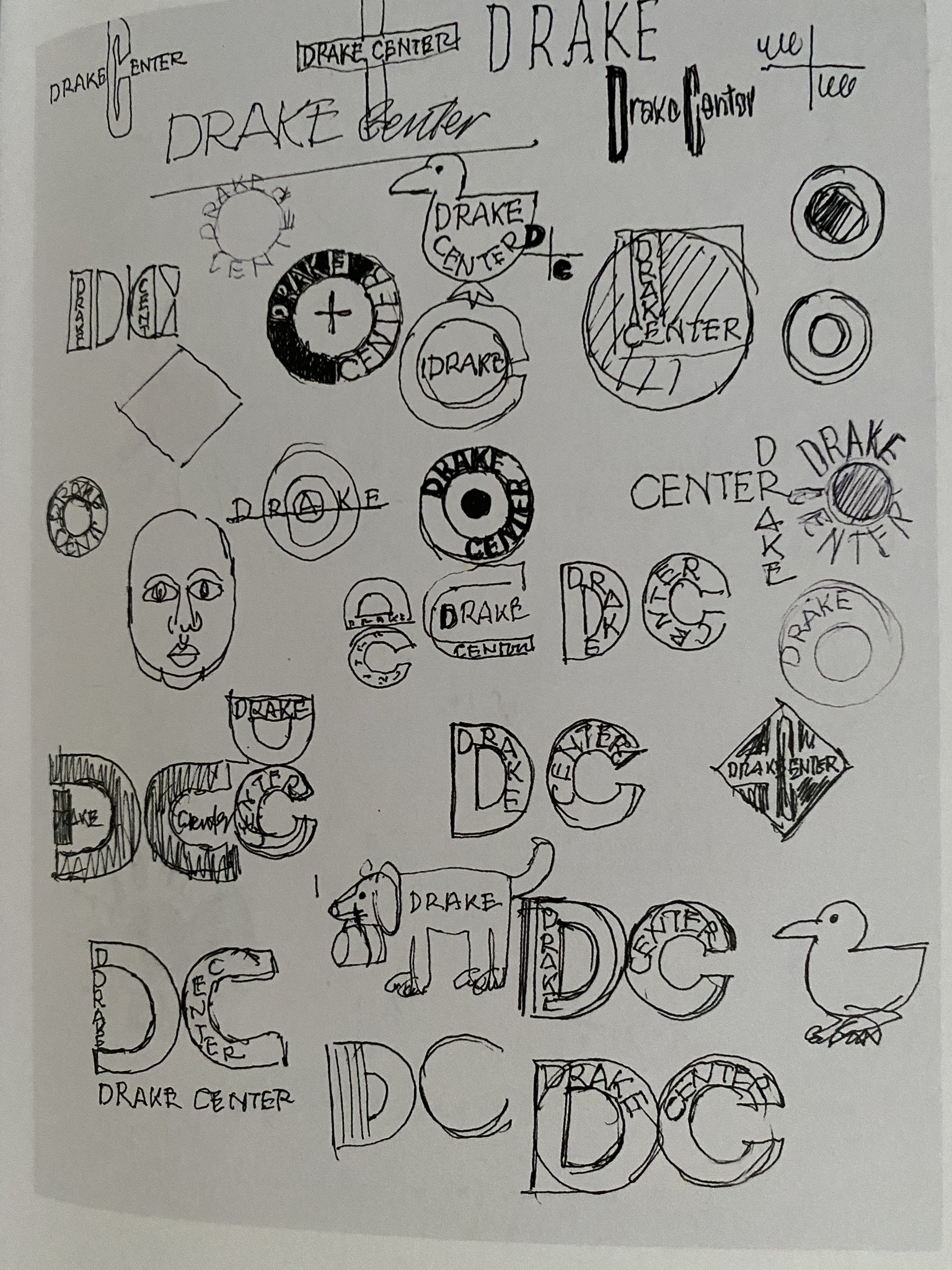
Paul Rand scribbles & sketches from newly released book Inspiration & Process Design via @kikocasa844
Paula Scher, Poster for the Public Theater, 2003 via @michaelbierut
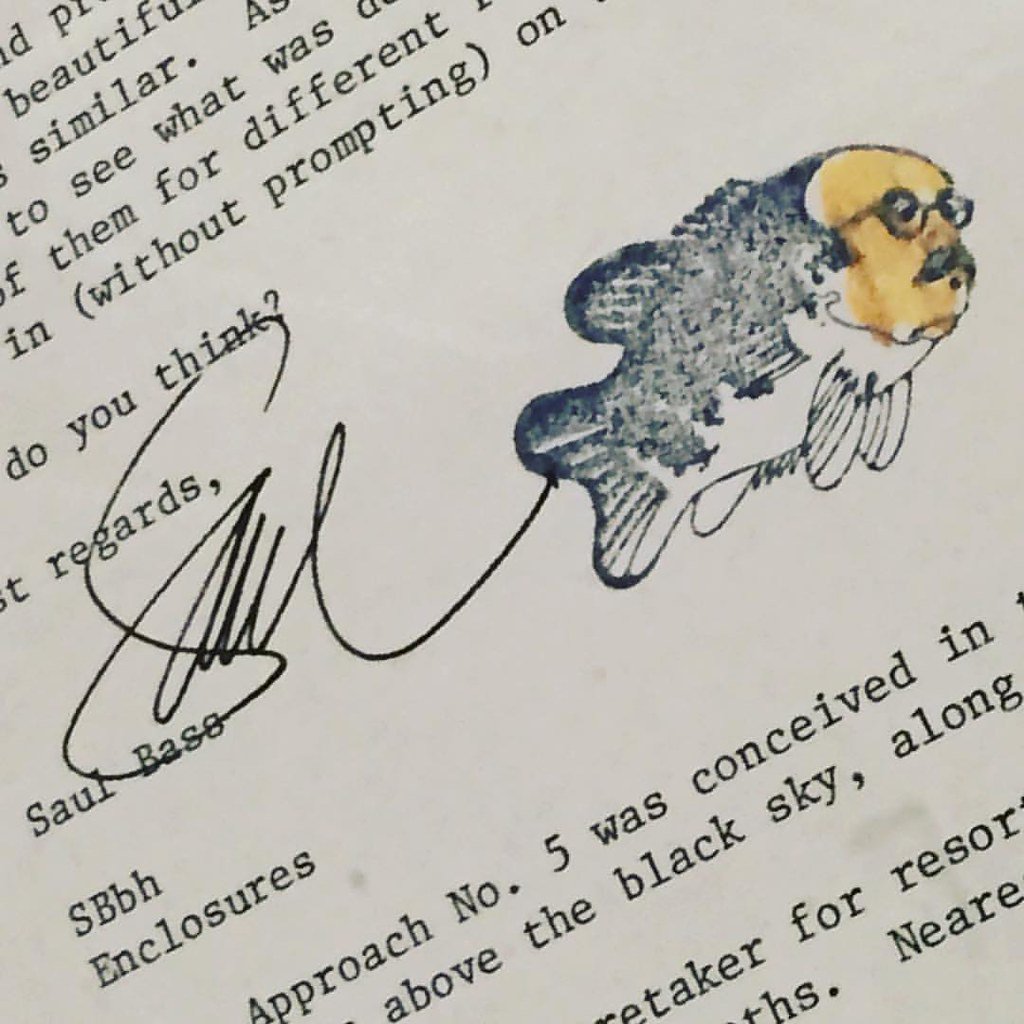
Saul Bass' signature scribble Bread and Honey via @usingourloaf
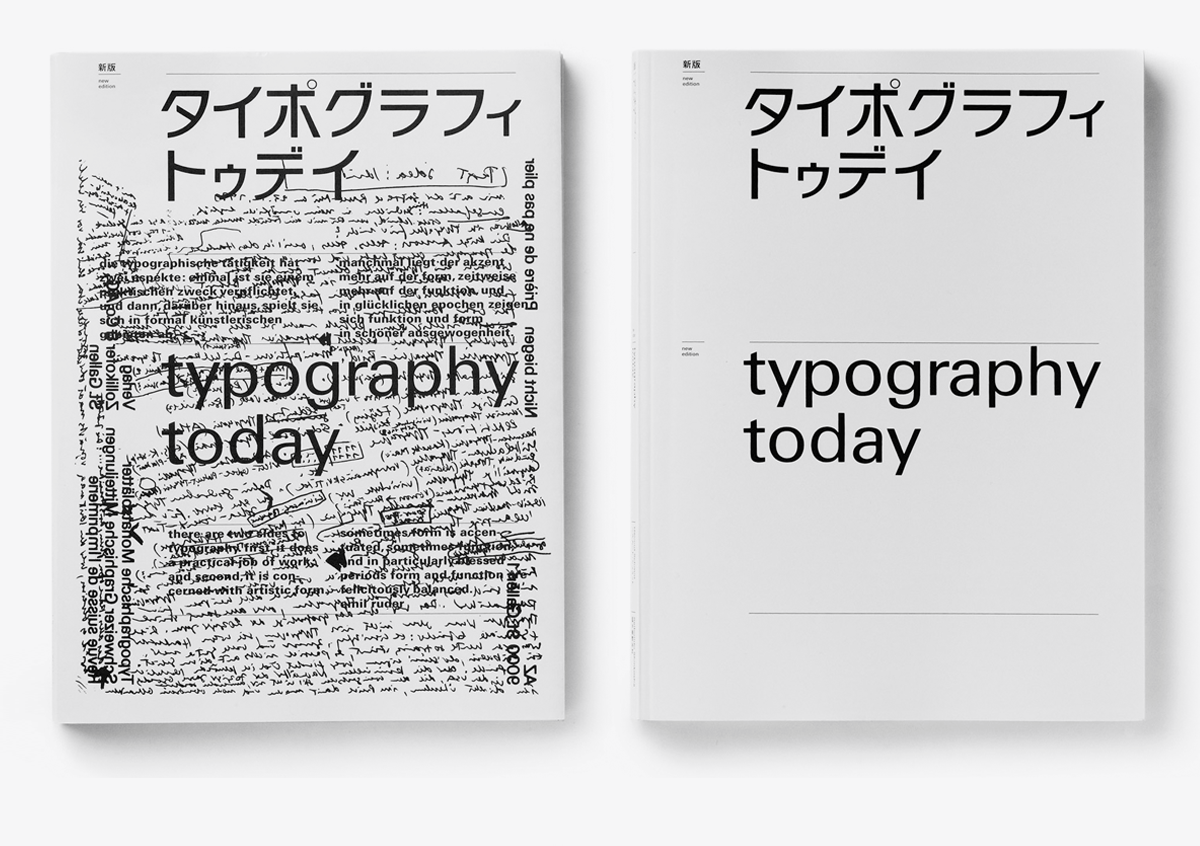
Cover of 'Typography Today', first published as a special edition of Idea magazine in 1980 and republished as a book in 1981, designed & edited by Helmut Schmid via @MHD_Studio
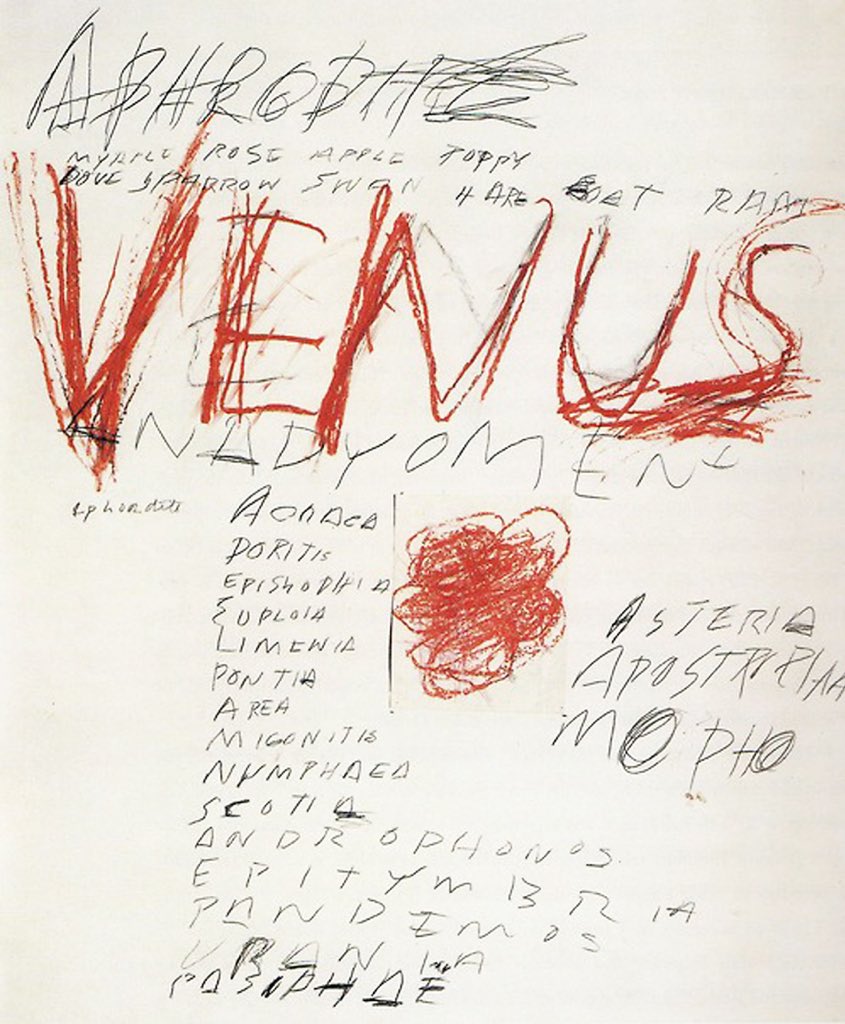
“Venus“ (1975) by Cy Twombly via @ArmandoRoqueCcs
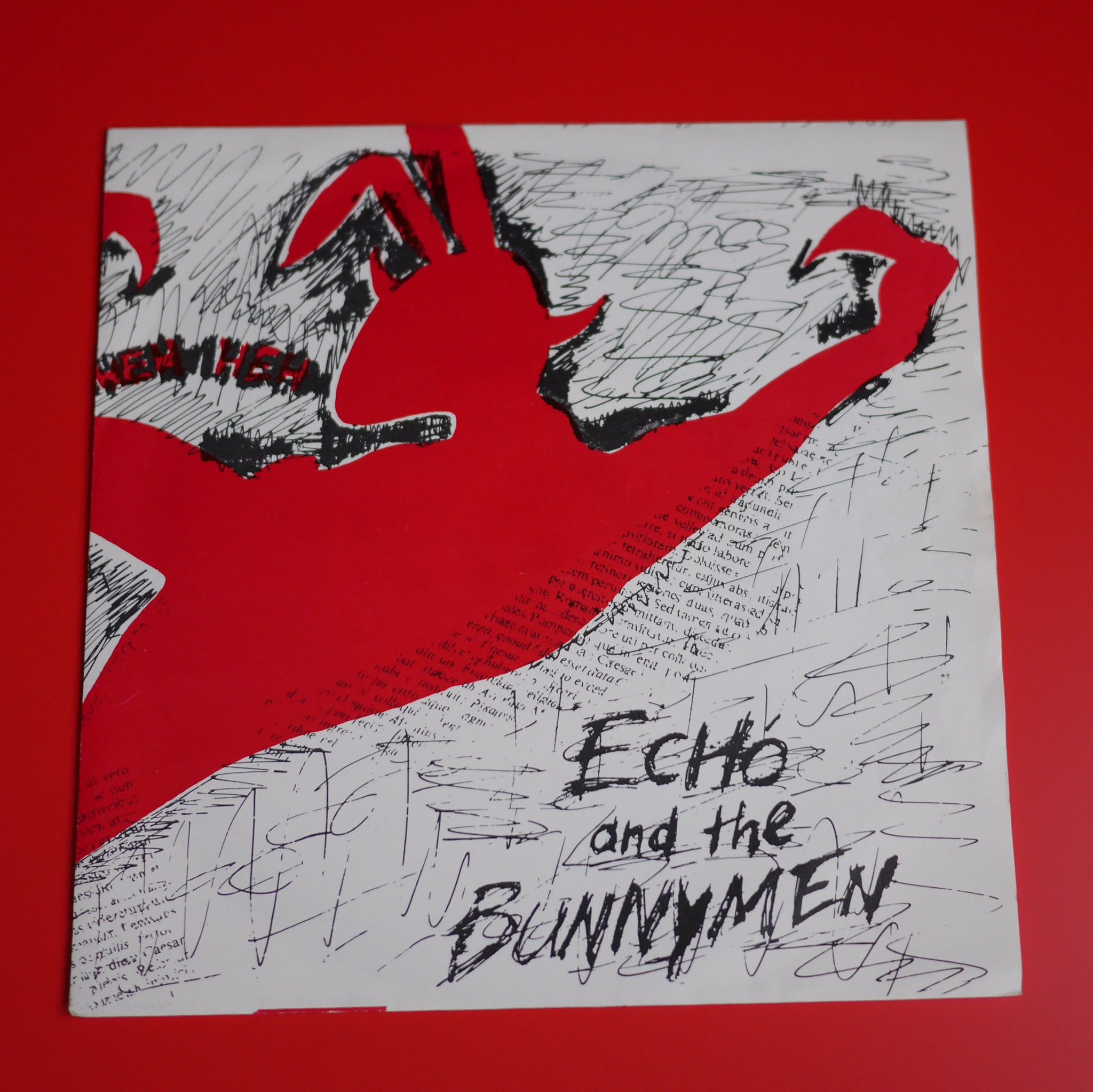
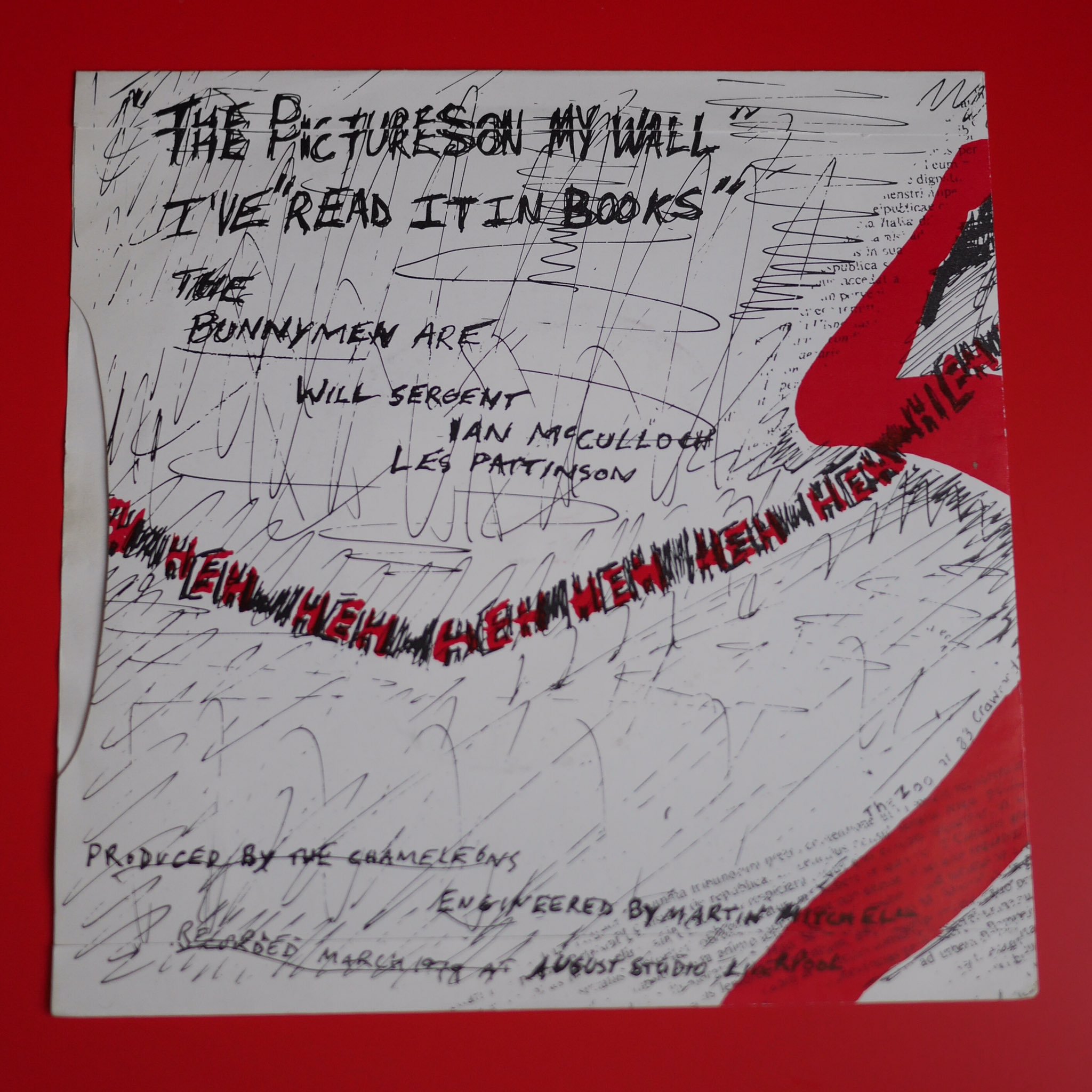
The scribbled Echo And The Bunnymen logo & text from their first single “The Pictures on my Wall” via @isetta_windsor
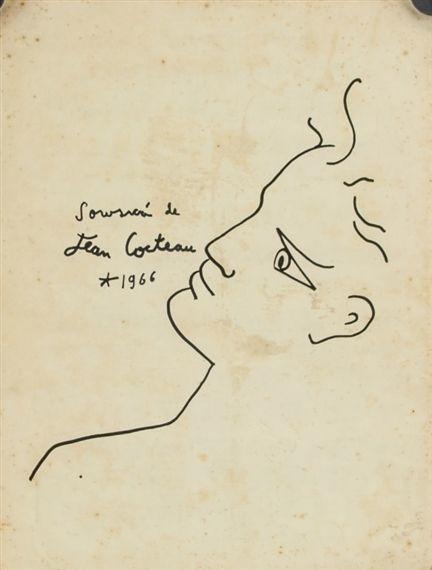
Jean Cocteau via @DesignMuseum
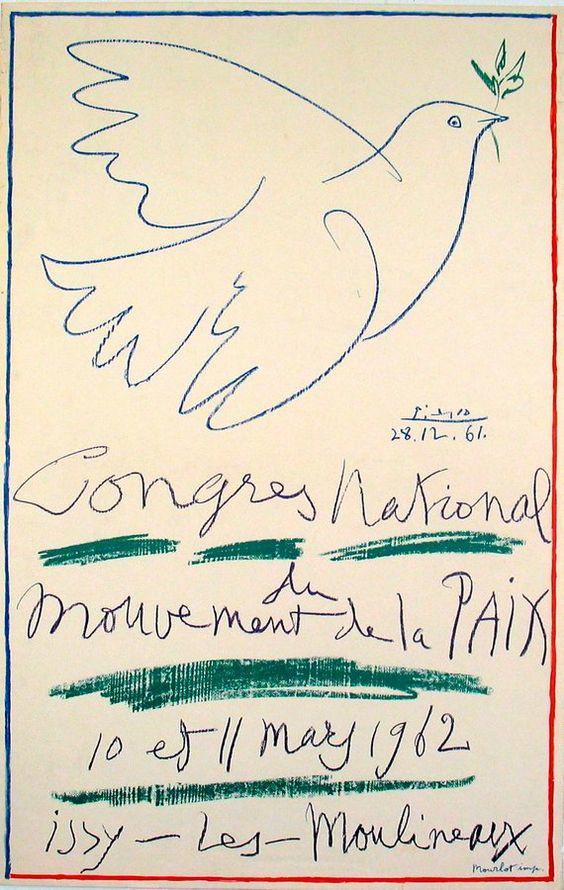
Pablo Picasso via @DesignMuseum
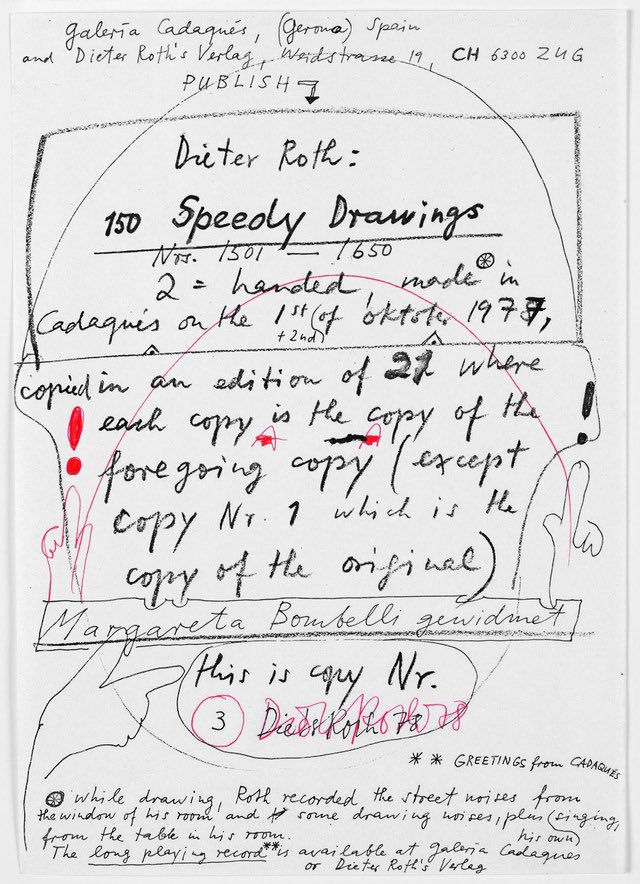
150 Speedy drawings by Dieter Roth via @kikocasa844
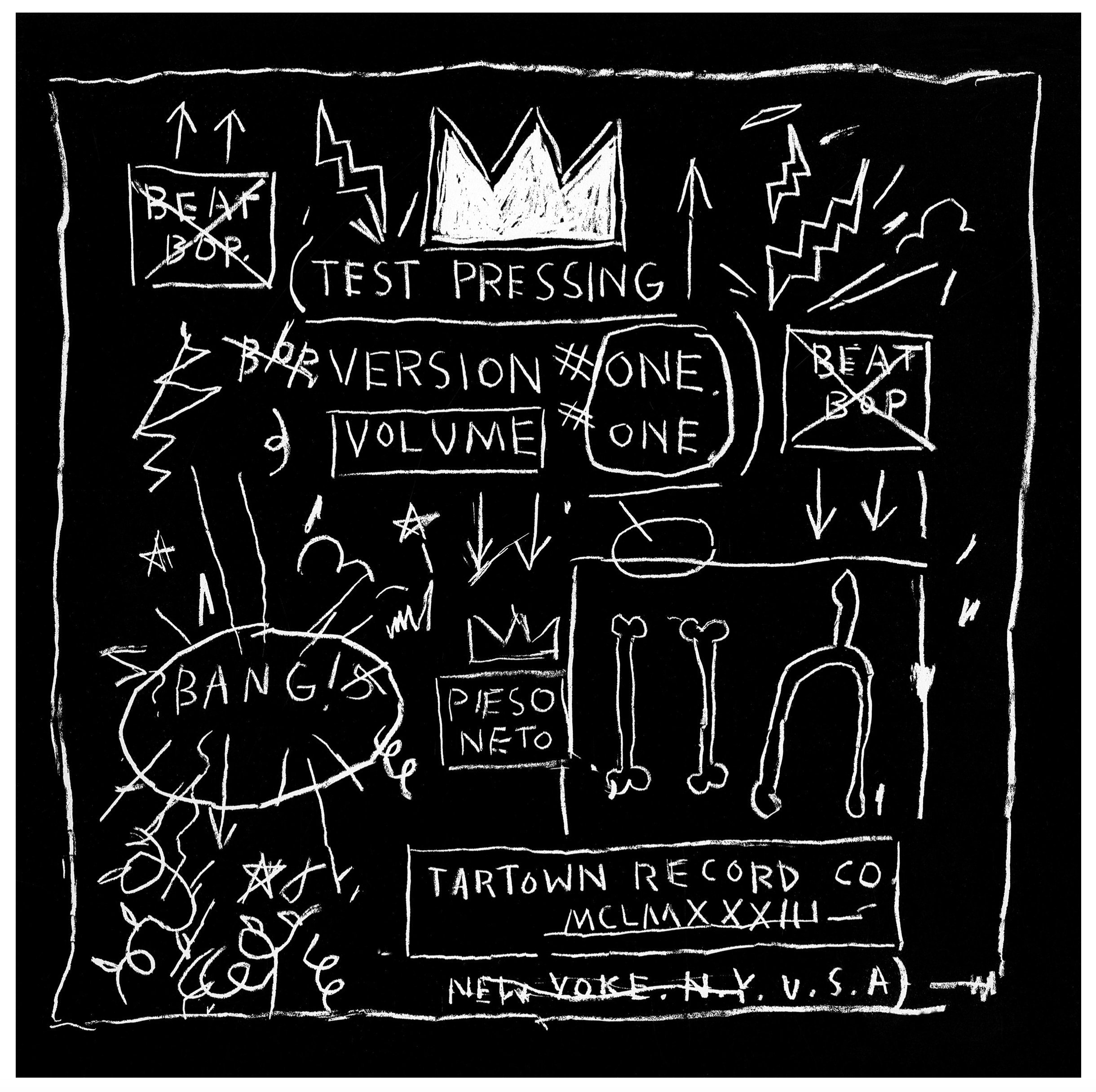
'Beat Bop' (1983) album cover (front and back) created by Jean-Michel Basquiat via @MHD_Studio
Helvetica, March 1958 / Eduard Hoffman’s Journal via @lorenamassacane
Arman, Arman Accumulations Renault,1969 via @kikocasa844
From the “Escritas“ series (1965) by Brazilian artist Mira Schendel via @ArmandoRoqueCcs
Adbusters Design Anarchy issue, designed by @barnbrook via @krfg
Milton Glazer's I Heart New York doodle via @Gardmuir
Sketches by Ed Fella via @blacktea_design